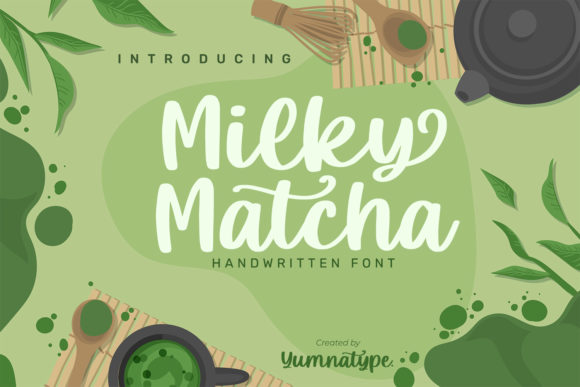
Journey into the realm of typography with Milky Matcha Font, a captivating script font that dances across the digital canvas with charm and elegance. Dive into a world of visual delight as this font takes your designs to new heights.
Milky Matcha is not just any font; it's a handcrafted masterpiece that exudes personality and flair. Each stroke, each curve, each letterform has been meticulously crafted to create a font that stands out from the ordinary.
Feel the warmth and comfort of a freshly brewed cup of matcha as you explore the possibilities of Milky Matcha. Its bold and playful nature makes it perfect for adding a touch of whimsy and charm to any project. Whether you're designing logos, invitations, social media graphics, or simply adding a personal touch to your digital creations, Milky Matcha is your perfect companion.
With Milky Matcha, you'll discover a font that sparks creativity and ignites your imagination. Its versatility knows no bounds, making it an ideal choice for a wide range of projects. From playful children's designs to elegant wedding invitations, Milky Matcha effortlessly adapts to your vision.
Milky Matcha is more than just a font; it's an experience. It's a way to express yourself, to captivate your audience, and to leave a lasting impression. So why settle for ordinary fonts when you can embrace the magic of Milky Matcha?
Don't miss this opportunity to add Milky Matcha to your typographic arsenal. As a PUA-encoded font, it grants you effortless access to a world of glyphs and swashes, unlocking endless creative possibilities.